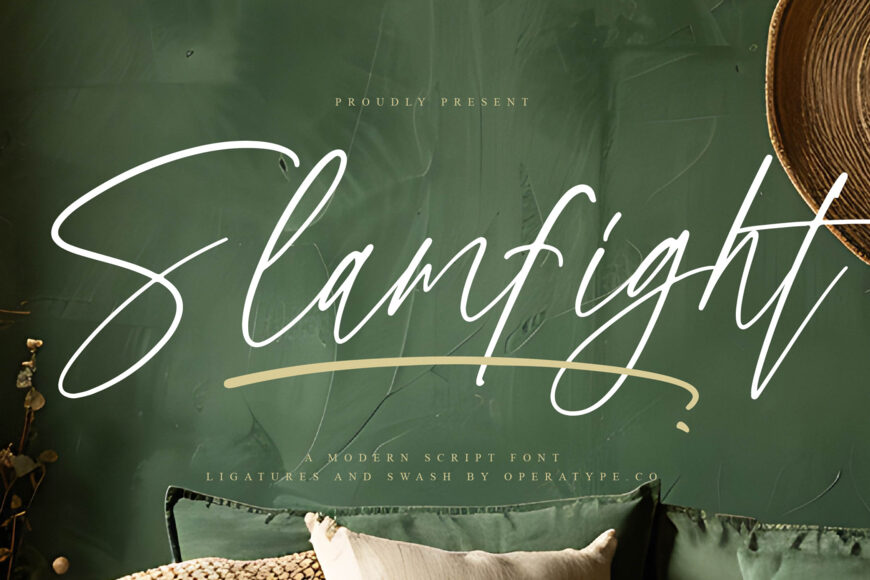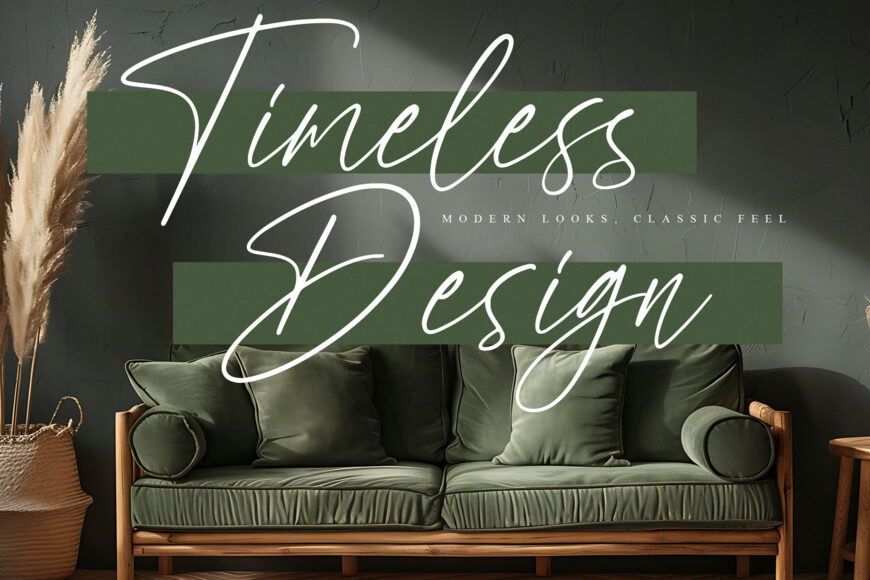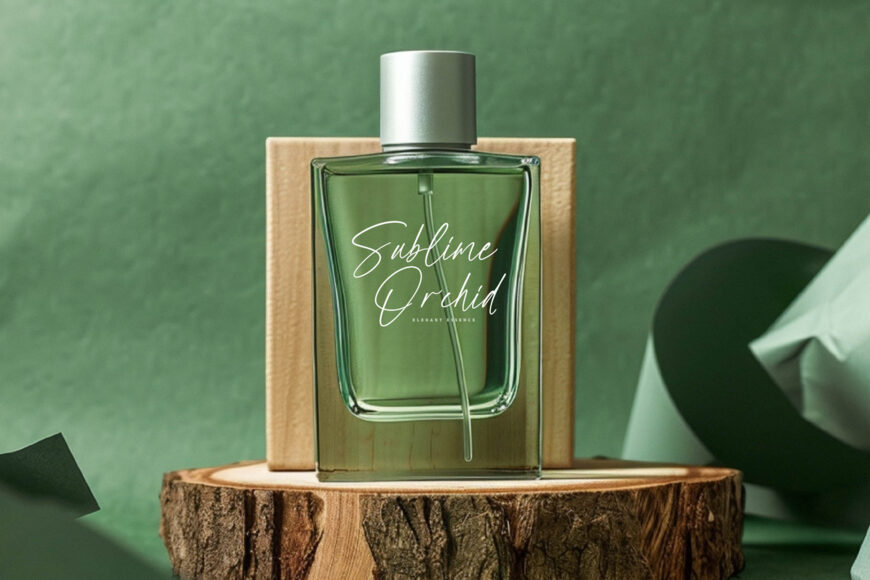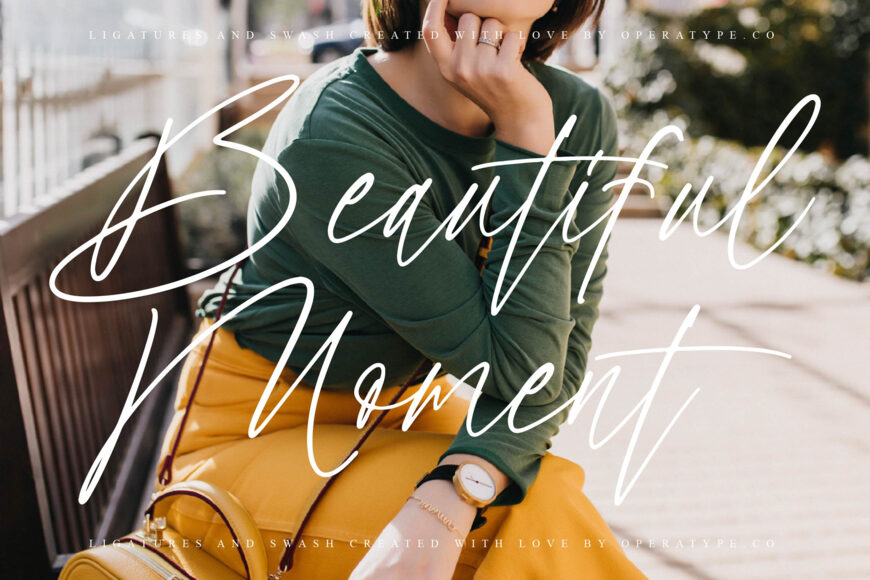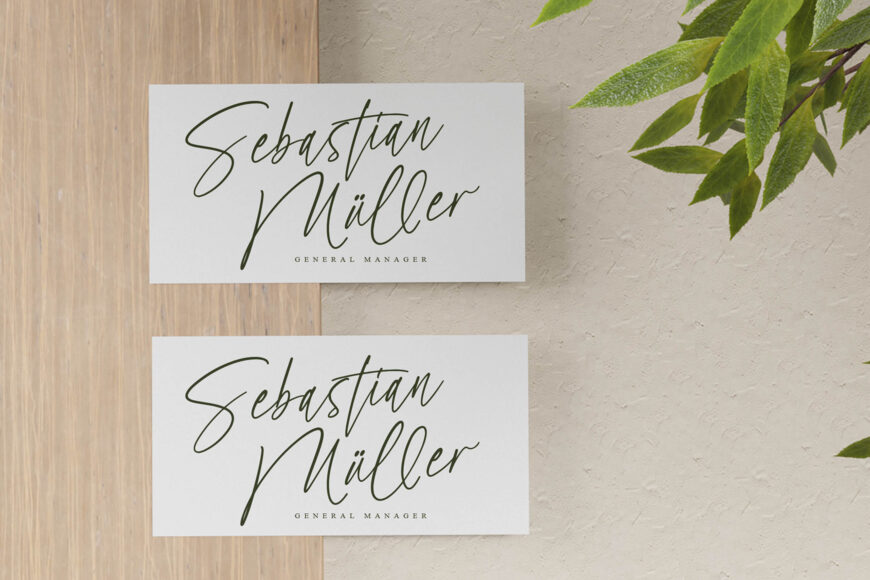
Slamfight Font
Slamfight is an elegant and expressive handwritten script font designed to capture movement, confidence, and creativity. Featuring long sweeping strokes, stylish ligatures, and elegant signature-style letterforms, this typeface creates a strong visual presence while maintaining a refined and sophisticated appearance.
Inspired by modern calligraphy and dynamic handwritten artistry, Slamfight combines energetic brush movement with smooth flowing connections to deliver typography that feels powerful, authentic, and effortlessly stylish.